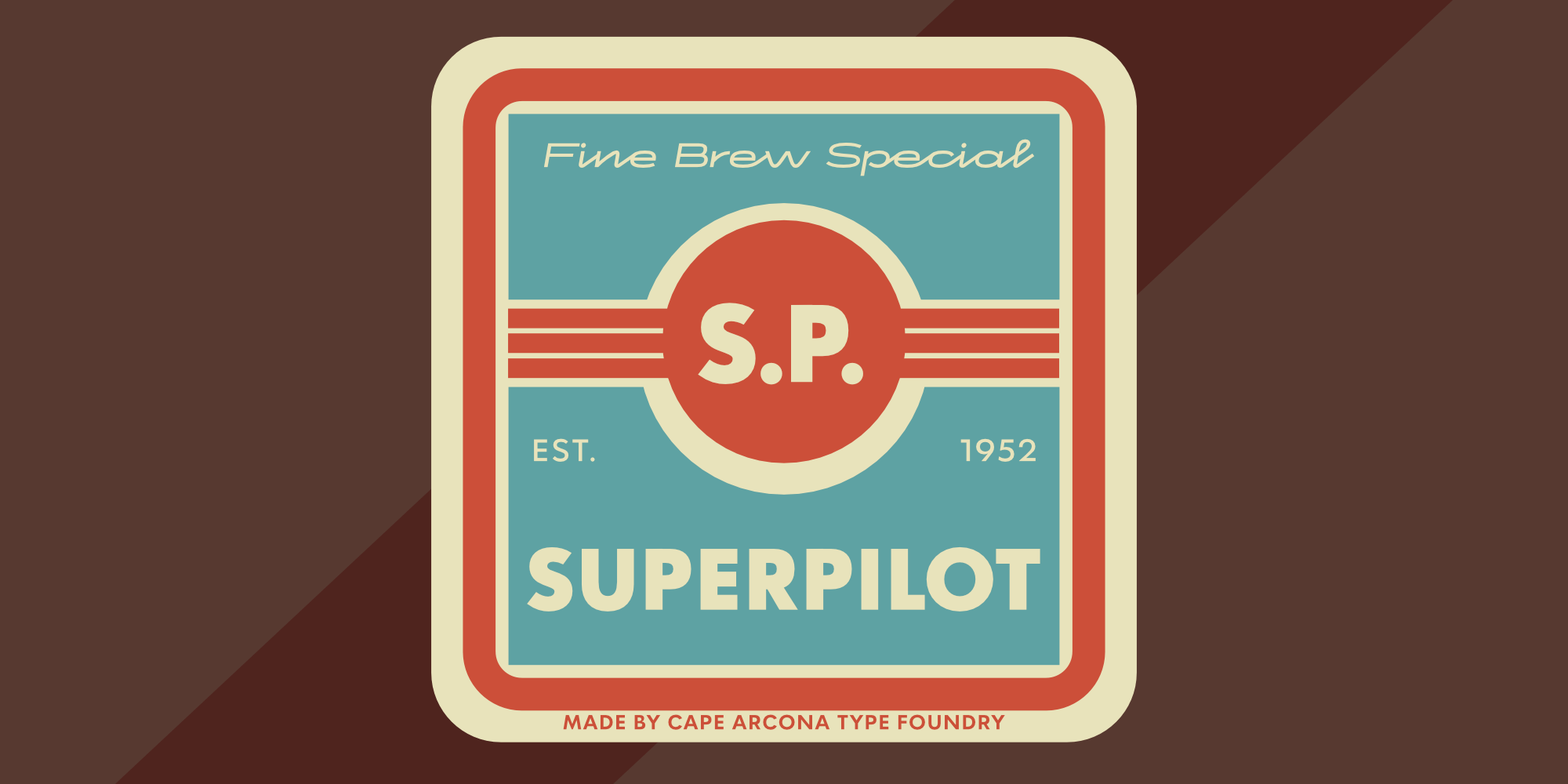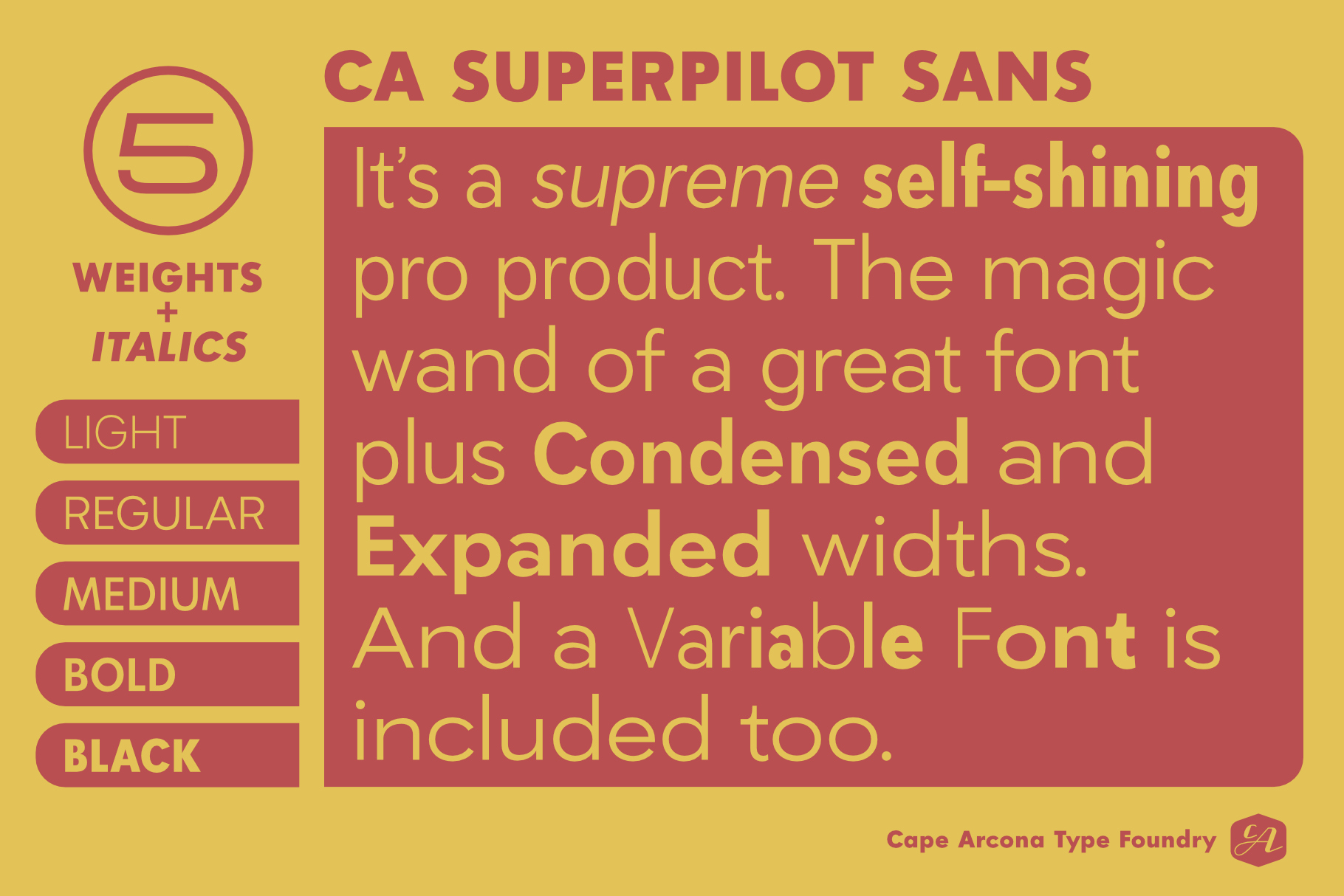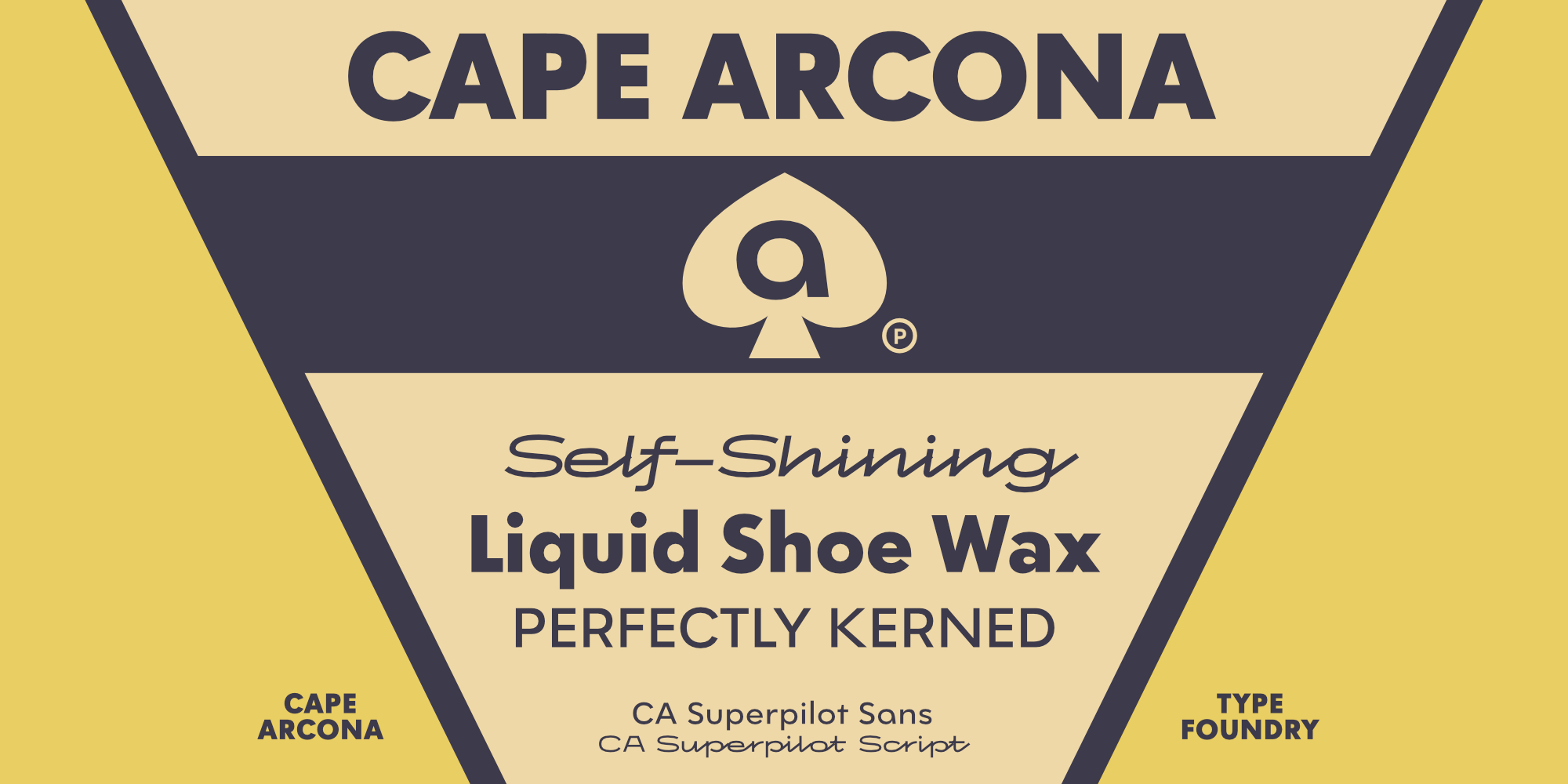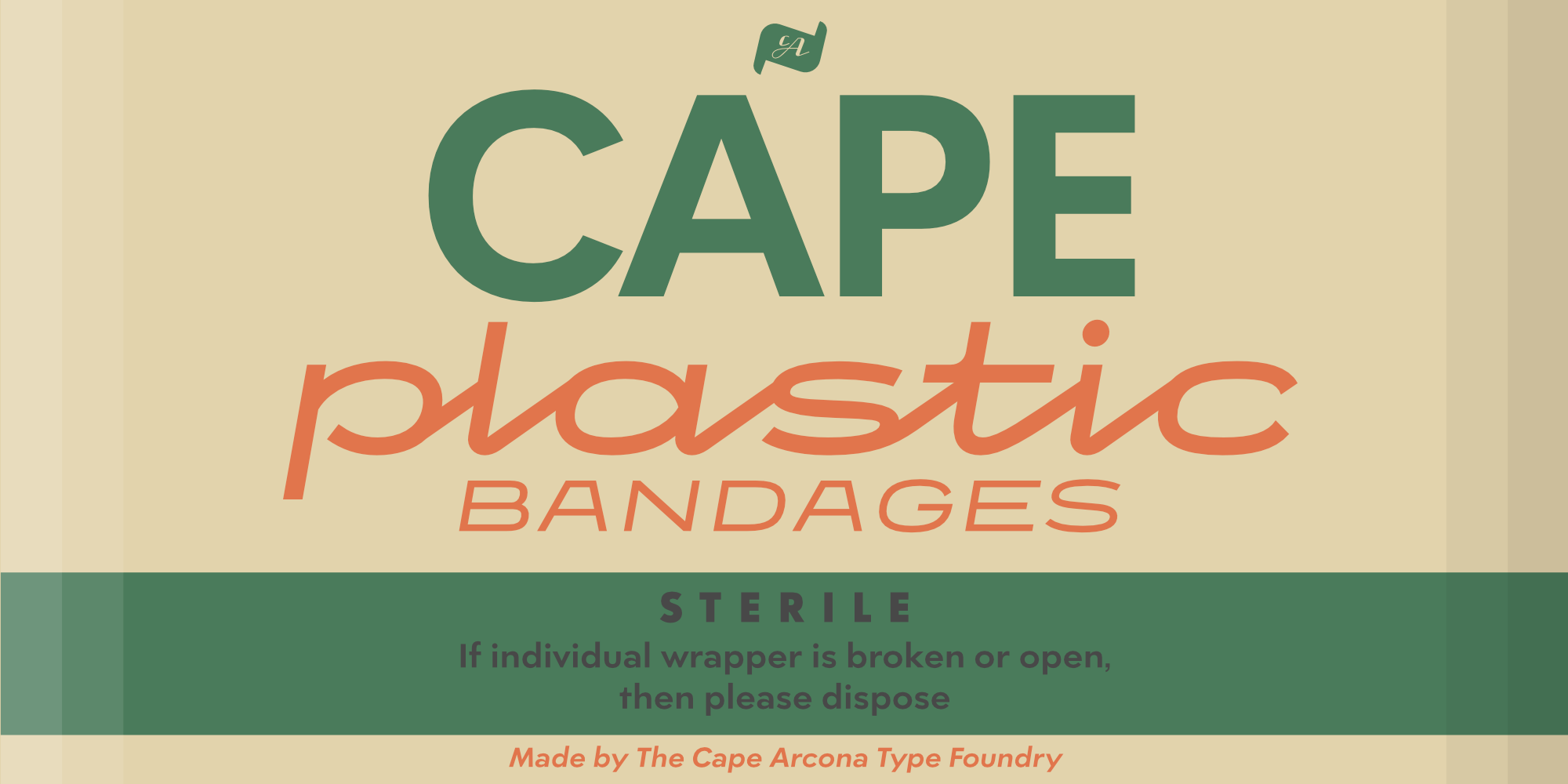
Meet the CA Superpilot Sans & Script duo – two typefaces built to work together, made for designers who want range without losing personality.
First, CA Superpilot Sans. It's a modern take on Futura: clean, contemporary, and genuinely useful. You get five weights plus italics, and Condensed and Expanded versions too, so it adapts to almost any project. It also ships with an extensive Central European character set and alternate characters, which means your designs hold up across different languages.
Then there's CA Superpilot Script. This one's a monoline script inspired by the logos and type markings found on old camera gear from the 1950s. It has that vintage feel, but it still feels fresh. You get regular and italic styles, and – like the sans family – a full Central European character set with alternates. The real strength shows up in headlines: set it in uppercase and the bold strokes and clean lines turn this script into something that actually grabs attention. Posters, magazine covers, website headers – it holds its own anywhere you need a headline to stick.
Put the two together and you've got a pair that just works. They balance each other out and give you the flexibility to handle branding, web, or print – all with one consistent visual voice. If you want a font duo that pulls its weight across formats, this is it.